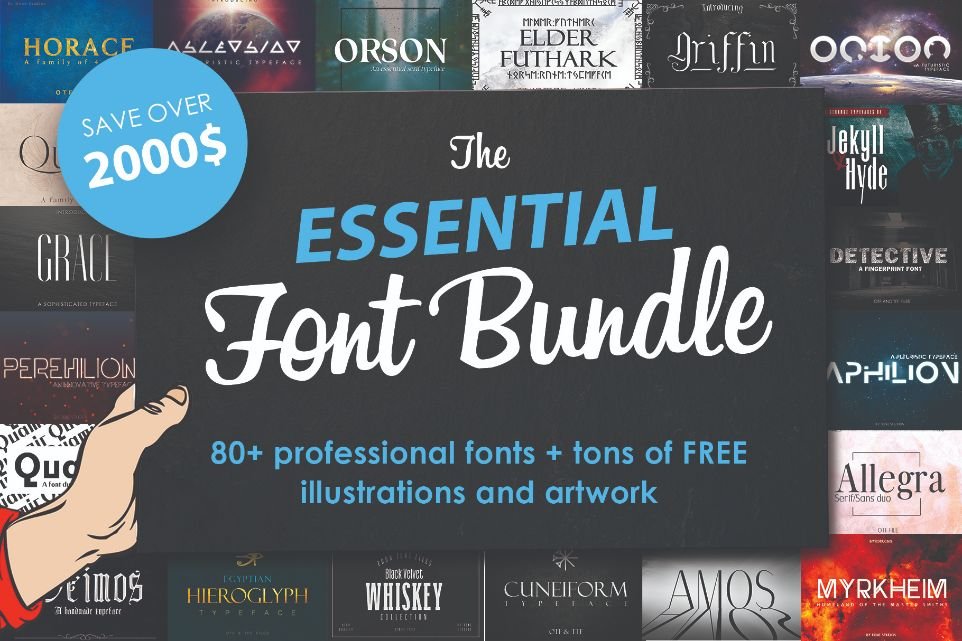
80+ Innovation Fonts Bundle
80+ Professional Innovative Fonts Collection!
Futuristic and traditional… modern and ethenic at the same time! Bringing you the super essential fonts collection – The Innovative Fonts Bundle!
This 80+ professional fonts bundle has a huge variety of fonts such as Serif, Sans Serif, Slab Serif, Display, Symbols, and Gothic typefaces. These modern fonts are clean, clear, and easy to read plus with a creative twist, they have a cool, contemporary vibe.
Whether you are looking for minimalistic, futuristic, or retro typefaces… you will find them all in this one pack. There are also several free illustrations and artwork included in this bundle that will give your design work an up-to-date edge.
80+ Innovative Fonts Included In This Bundle:
Allegra
Amos
Aphilion
Apollo
Archibald
Ascension
Assassin
Axe-Regular
Black Velvet
Cuneiform
Deimos
Detective
Dr.Jekyll & Mr.Hyde
Edgar
Elder Futhark
Equinox
Exoplanet
Grace
Griffin
Hieroglyphs
Horace
Maze
Myrkheim
Nadir
Nova
Orion
Orson
Perehilion
Quamir
Queen
Reznor
Sterling
Thorn
Vogue
Voyager